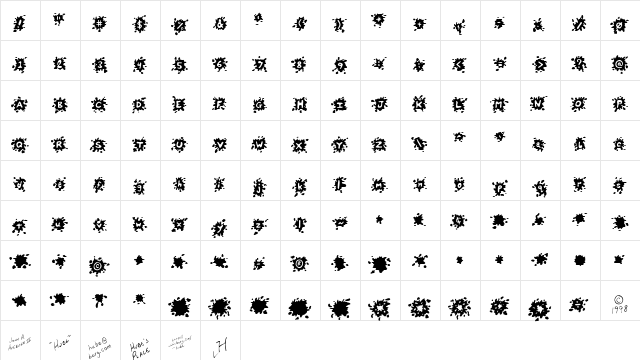
Splats Normal Font Preview
Splats Normal
Splats Normal Font Details
Design Context for Splats Typeface
Splats is a composed and adaptable typeface that performs quietly and consistently across a wide range of design contexts.